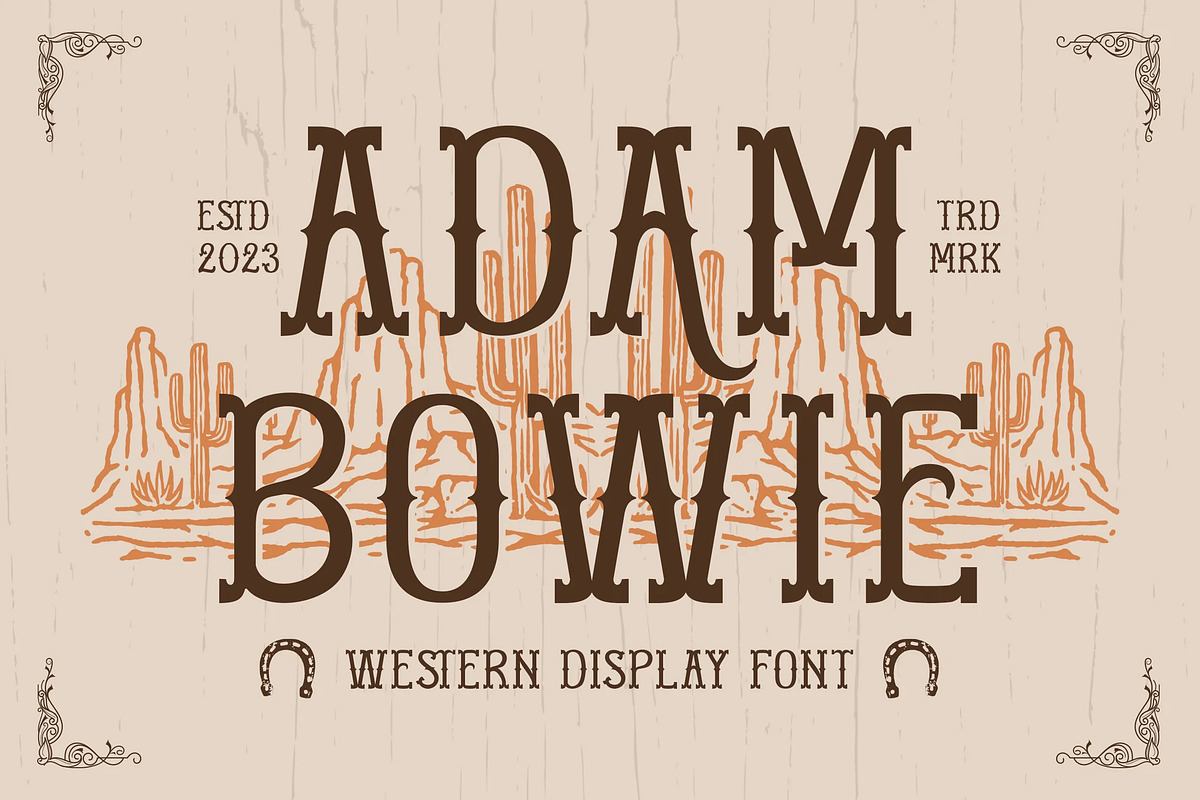
You must purchase this font for commercial use. However, you can download Adam Bowie - Western Display Font Free Download for testing purposes. Adam Bowie is a bold and striking western-inspired display font, designed to capture the rugged, adventurous spirit of the Wild West. Its strong letterforms, sharp edges, and vintage feel make it perfect for branding, posters, logos, event signage, and any project that needs a bold, cowboy-themed aesthetic.
The font’s design incorporates elements of western typography, with a modern twist, making it versatile for both retro and contemporary designs. Whether you're working on a western-themed event, a rugged brand identity, or creating unique merchandise, Adam Bowie will give your typography a bold, adventurous vibe.